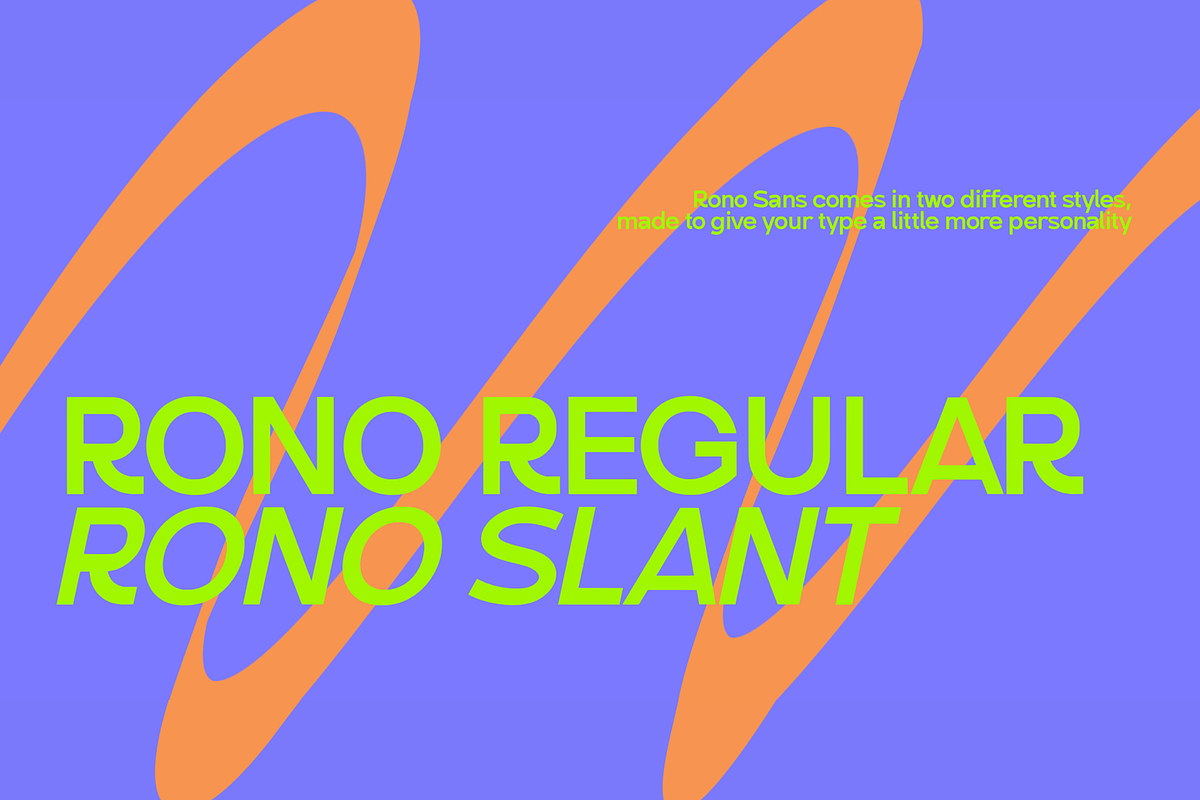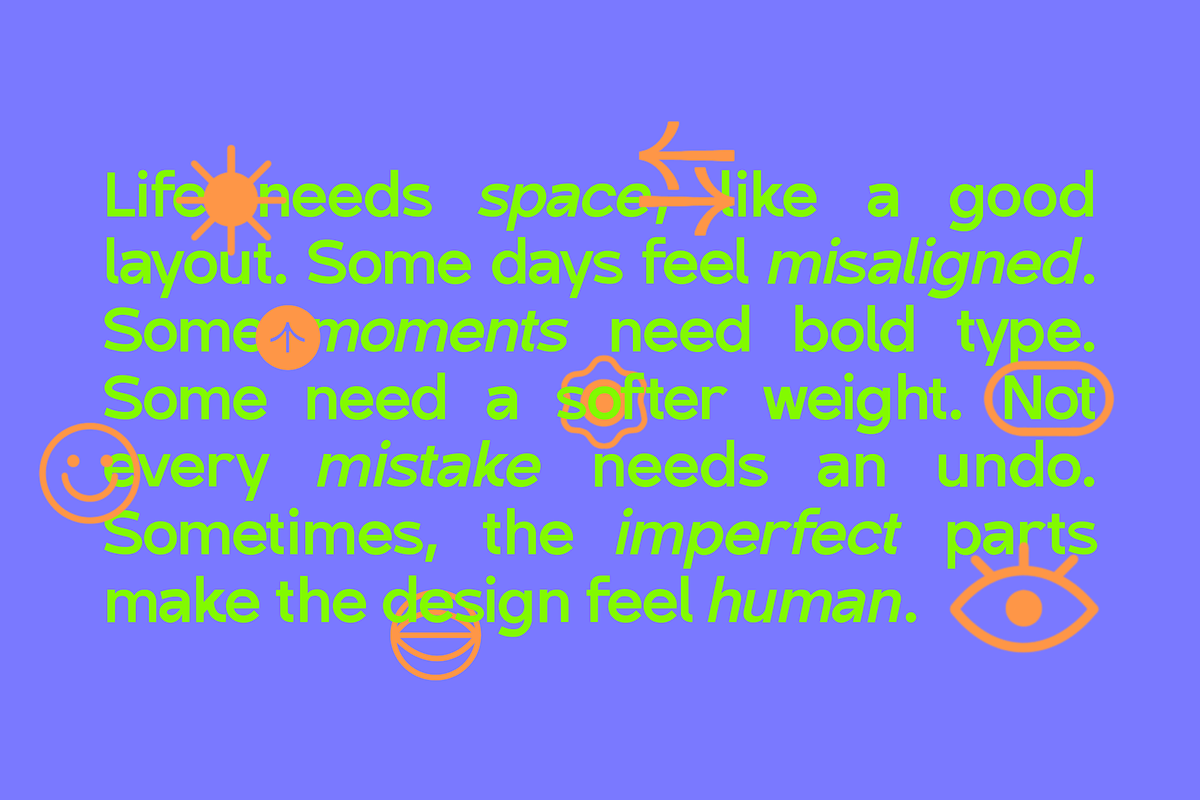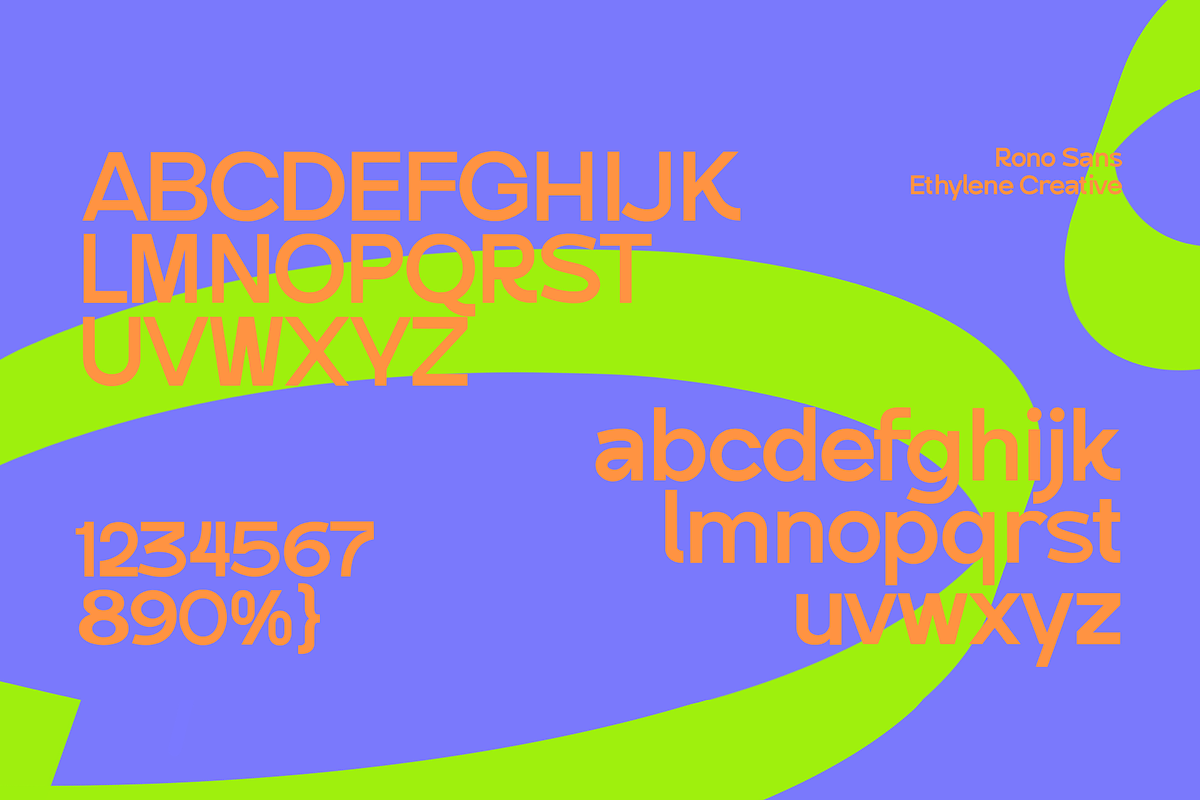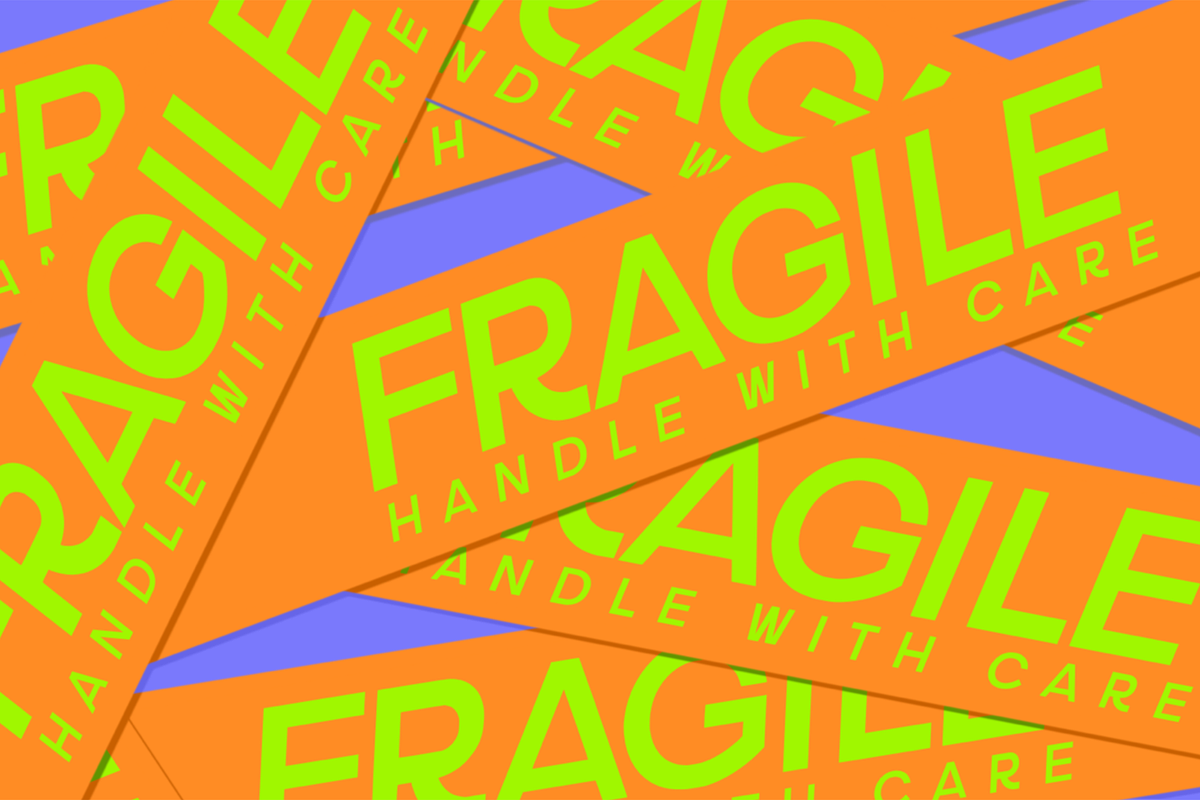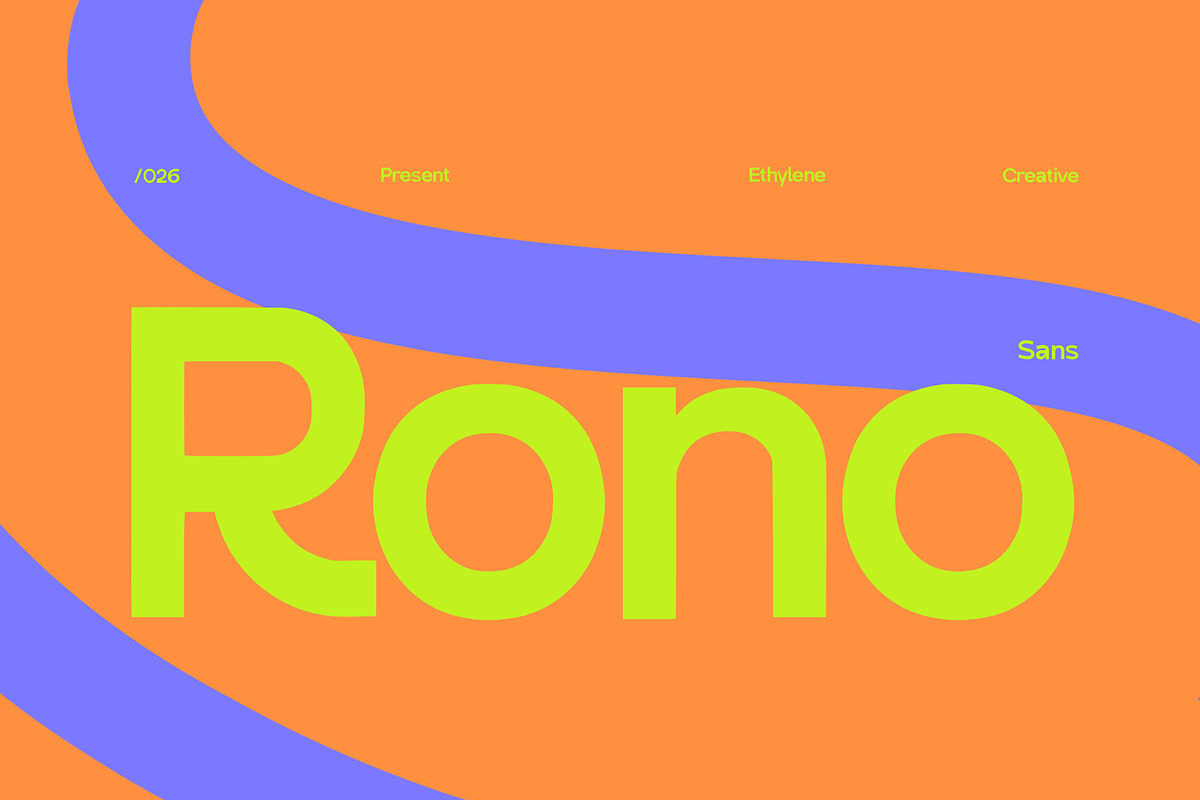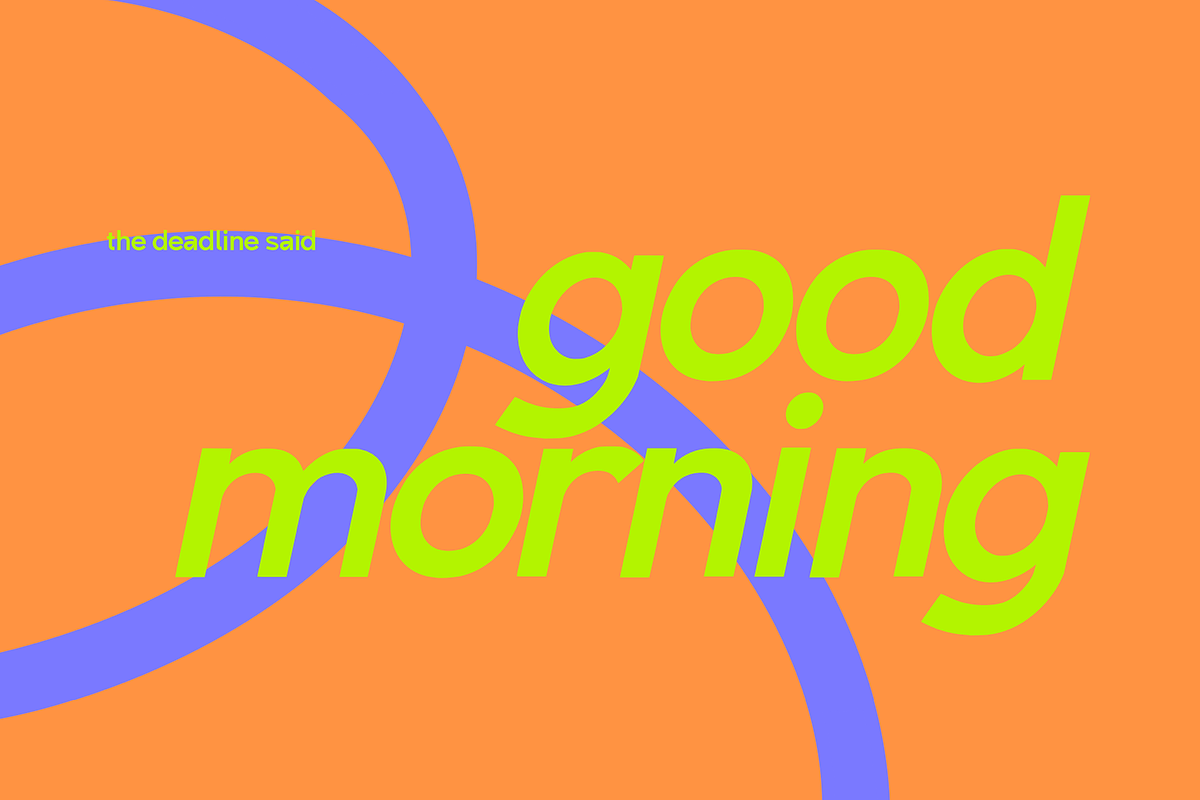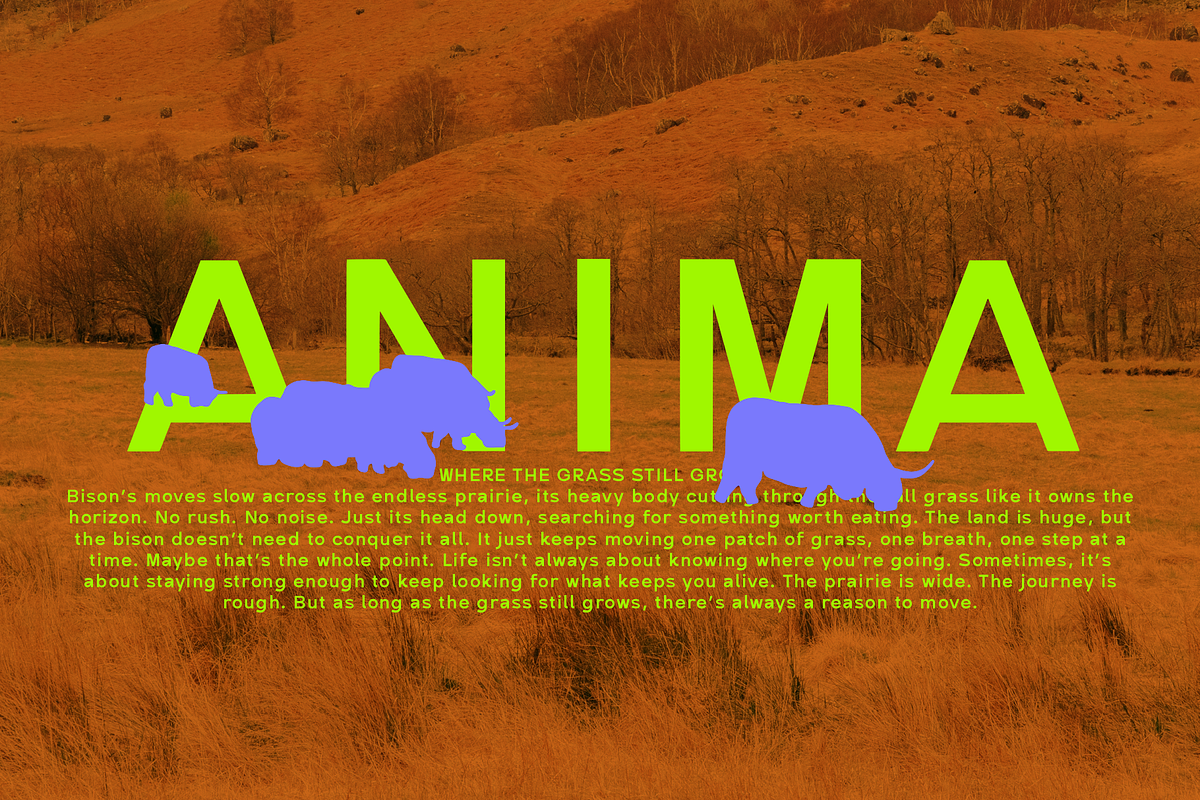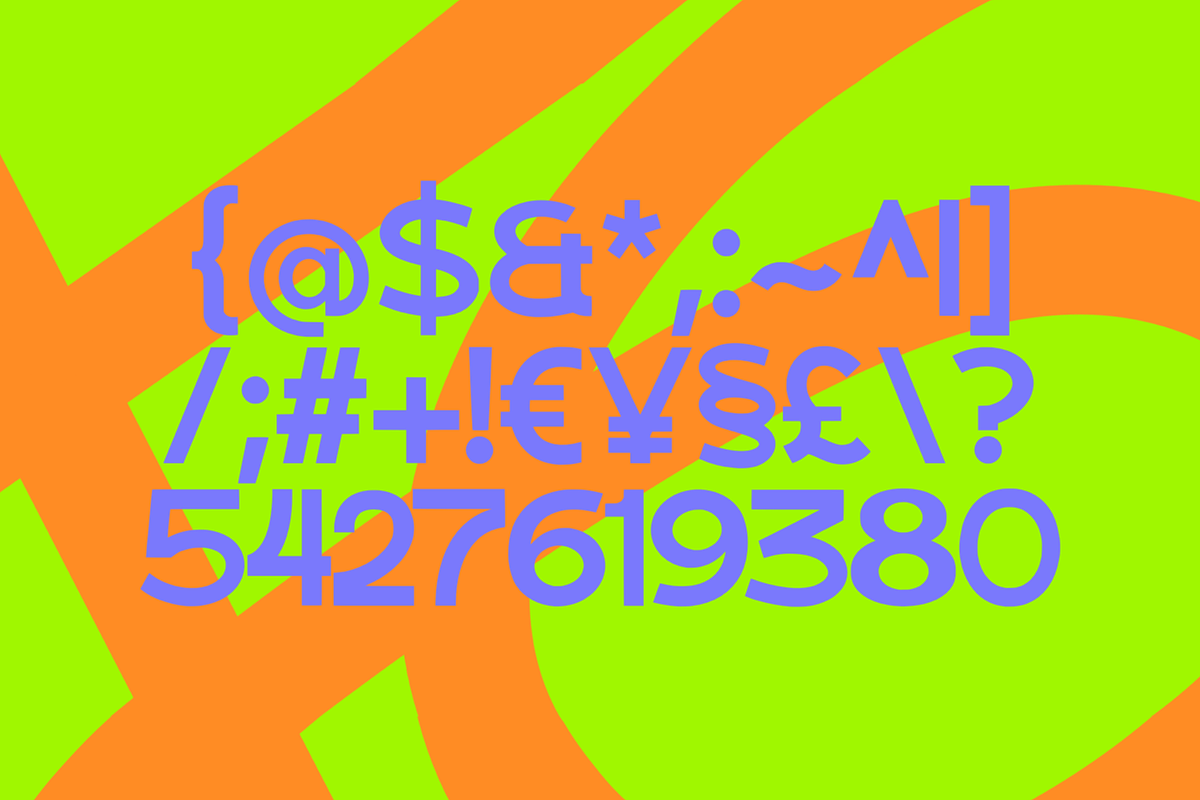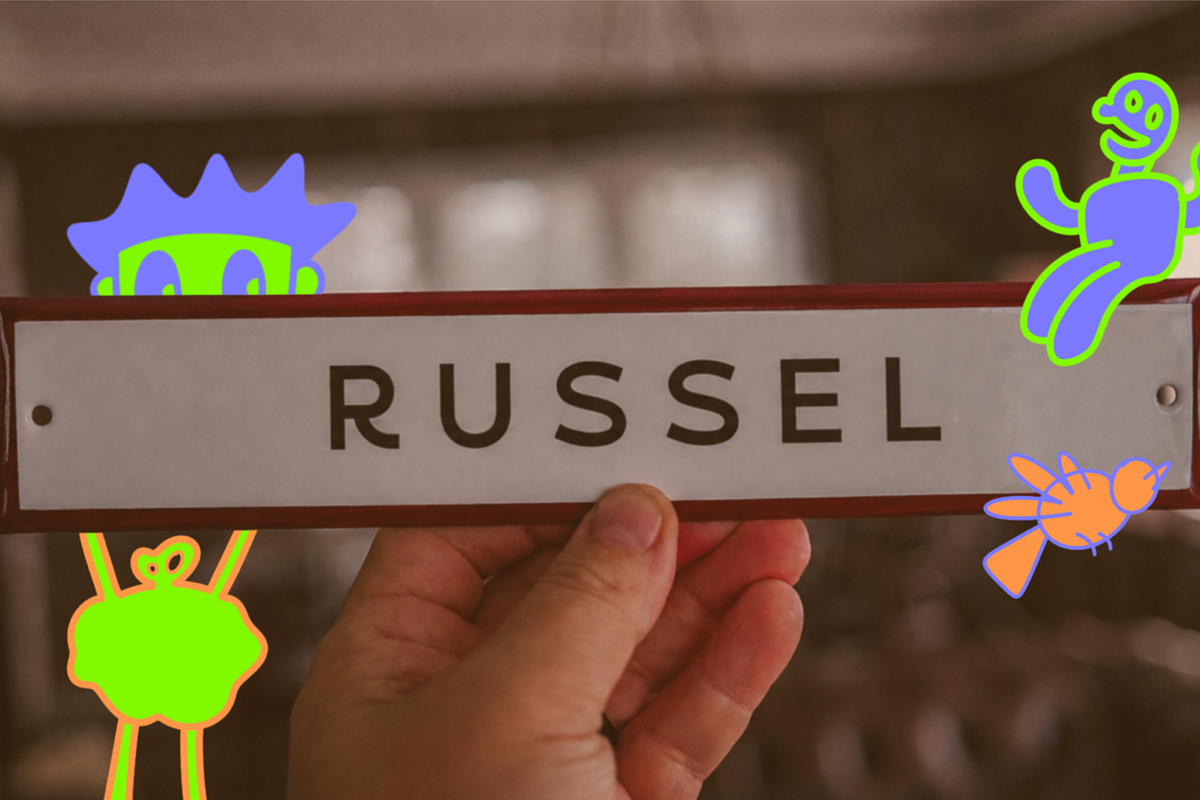
Rono - a Unique Modern Sans Serif
RONO SANS — Playful Geometric Sans Serif
Give your designs a bold, modern personality with Rono Sans, a playful geometric sans serif designed to feel clean, friendly, and full of character.
Rono Sans comes in two versatile styles — Regular and Slant. Use the Regular style when you want a strong and balanced look, or switch to Slant when you want your typography to feel more energetic, expressive, and dynamic.
The geometric construction keeps the font modern and versatile, while its unique proportions and playful details help it stand out from ordinary sans serif fonts.
Rono Sans is a great choice for:
Whether you're creating a bold brand identity, an eye-catching poster, or a playful social media campaign, Rono Sans adds a distinctive contemporary voice to your typography.
FONT FAMILY Rono Regular Rono Slant